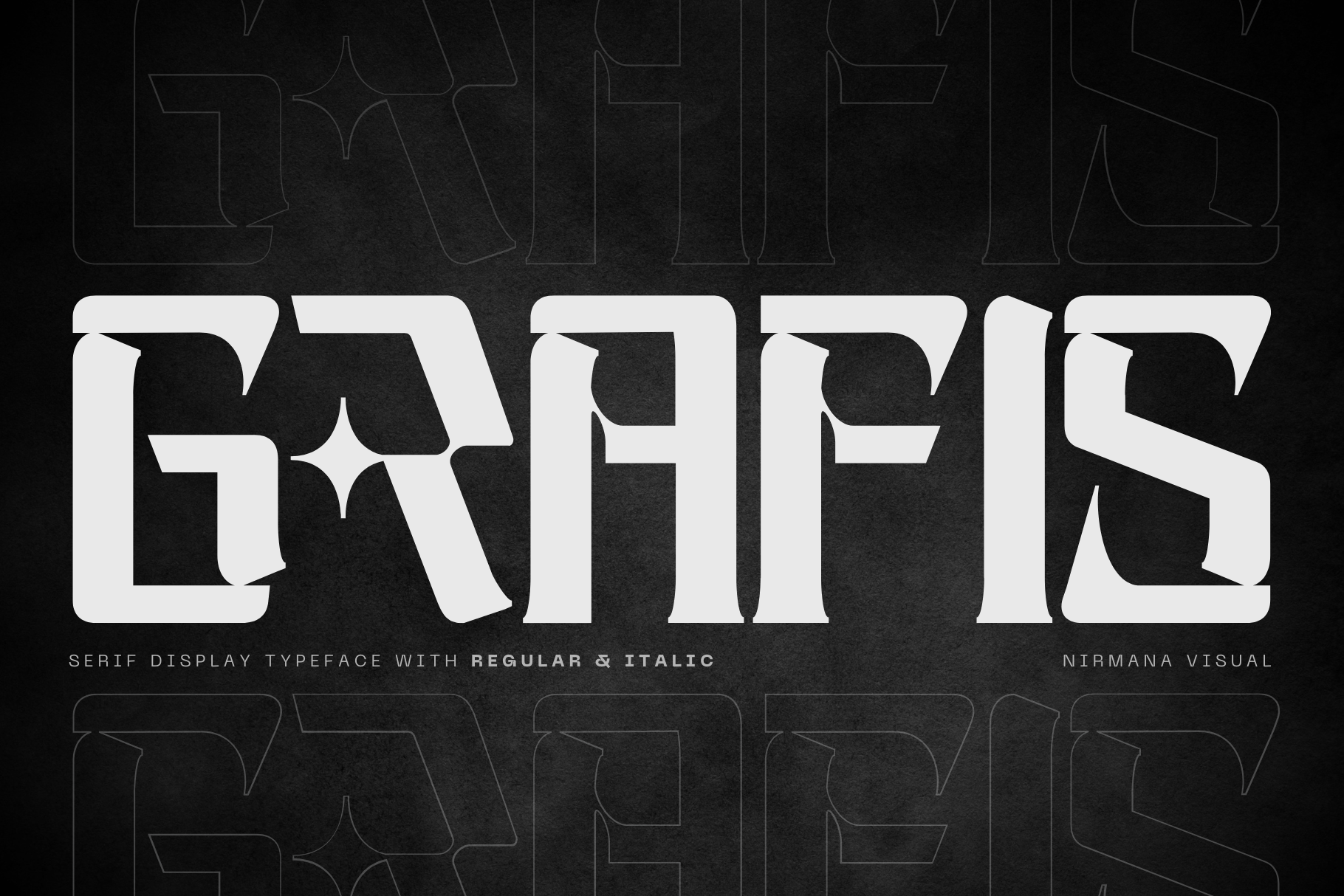
Grafis Techno - Branding Logo Font
Grafis Techno is a futuristic font that blends modern serif elegance with bold techno display elements. Designed for innovation, it features high-contrast strokes, angular terminals, and sleek curves, creating a cutting-edge yet refined look. Ideal for tech branding and sci-fi visuals. Grafis Techno offers custom ligatures and alternate glyphs for versatility. This fusion of serif stability and futuristic aesthetics makes it a standout in digital and creative industries.